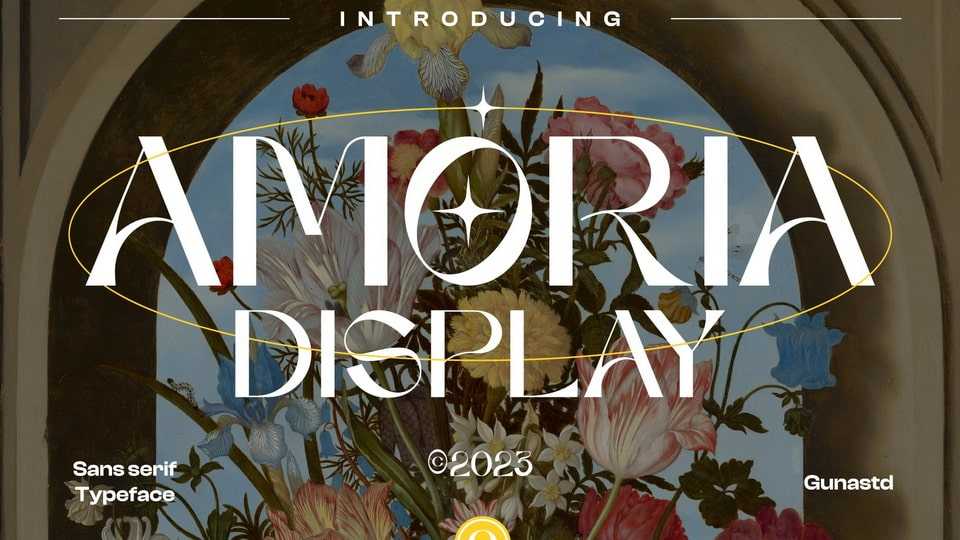
Download Amoria font, a modern sans serif typeface with decorative characters. Amoria font will be perfect for many different projects such as logos and branding, invitations, posters, flyers and so on.
Designer: Guna Studio